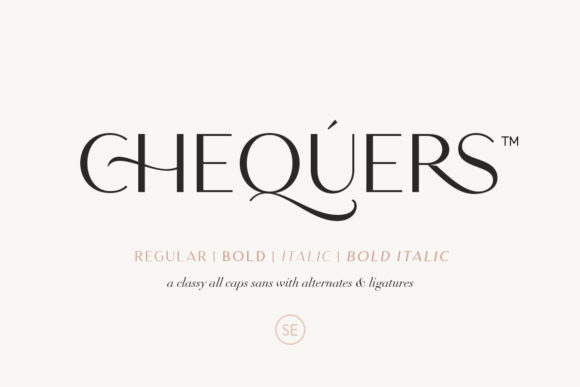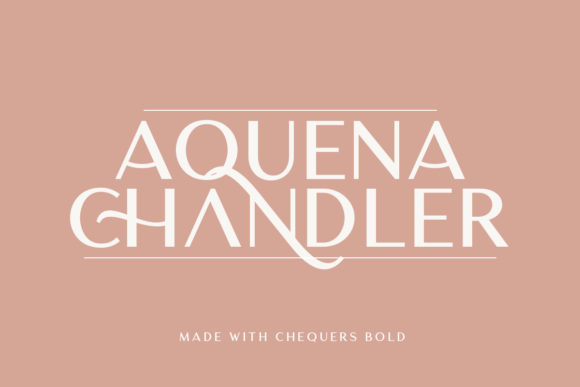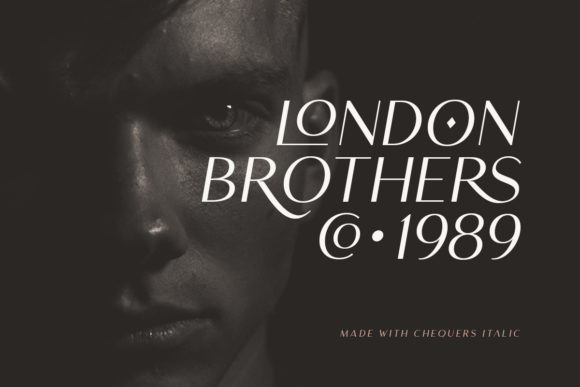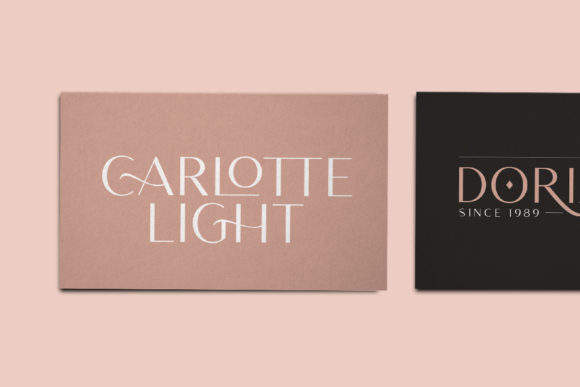
Chequers Font: Elegant Ligature Sans Serif for Modern Logo Design
About the Chequers Font
Meet Chequers Font, a stunning font that brings a touch of elegance and professionalism to any design. Chequers is a classic and modern sans serif font. This font contains a bunch of essential ligatures that will make your presentation or logo even more stunning and stand out!
Chequers Font Usage Examples
Chequers Font Example